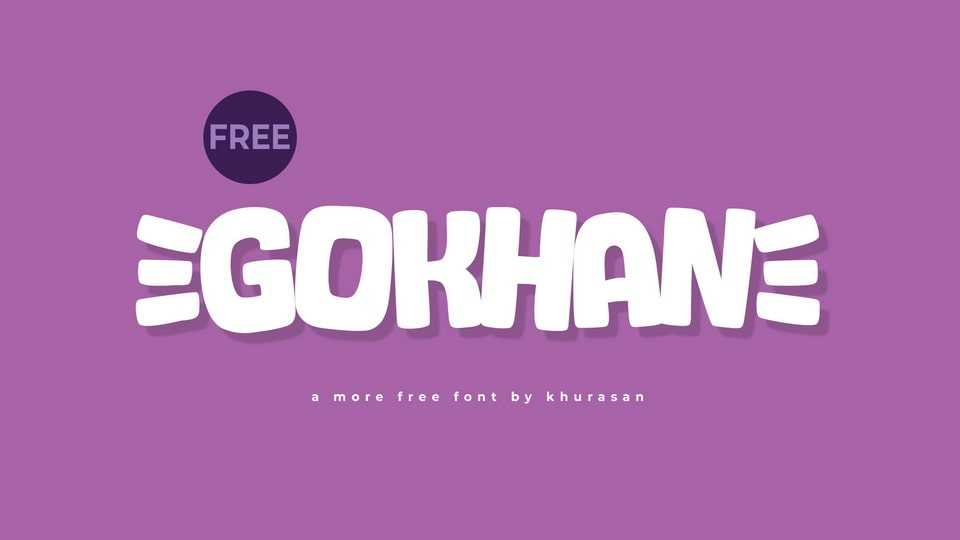
Download Gokhan font, a bold and quirky hand-crafted cartoon typeface that bursts with fun and personality with its playfully oversized irregular shapes.